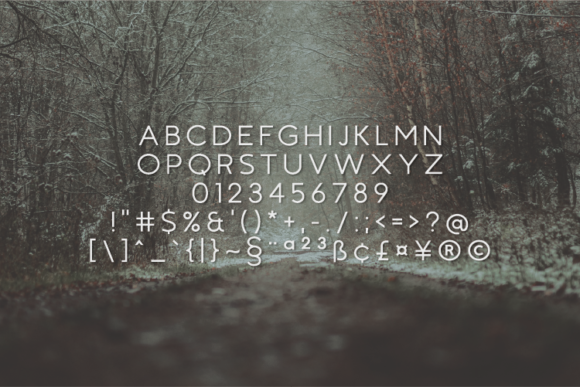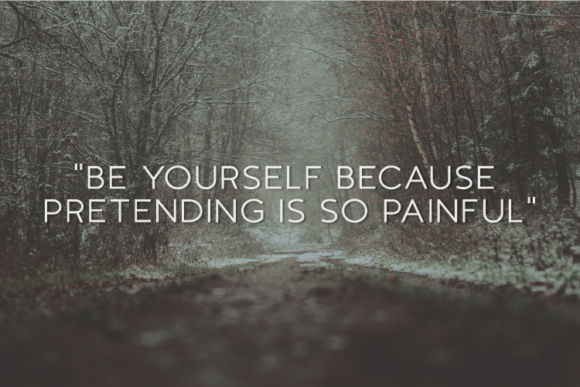
Introduction to Scar Moon Font
Scar Moon is a modern sans serif font that is readable, thin and stylish.
It is perfect for fashion branding or editorial designs Add it confidently to your projects, and you will love the results.
Key Features of Scar Moon Font
Why Choose Scar Moon Font?
Scar Moon Font offers exceptional quality and versatility, making it a valuable addition to your design toolkit. Whether you’re creating for personal projects or commercial use, Scar Moon Font delivers professional results.